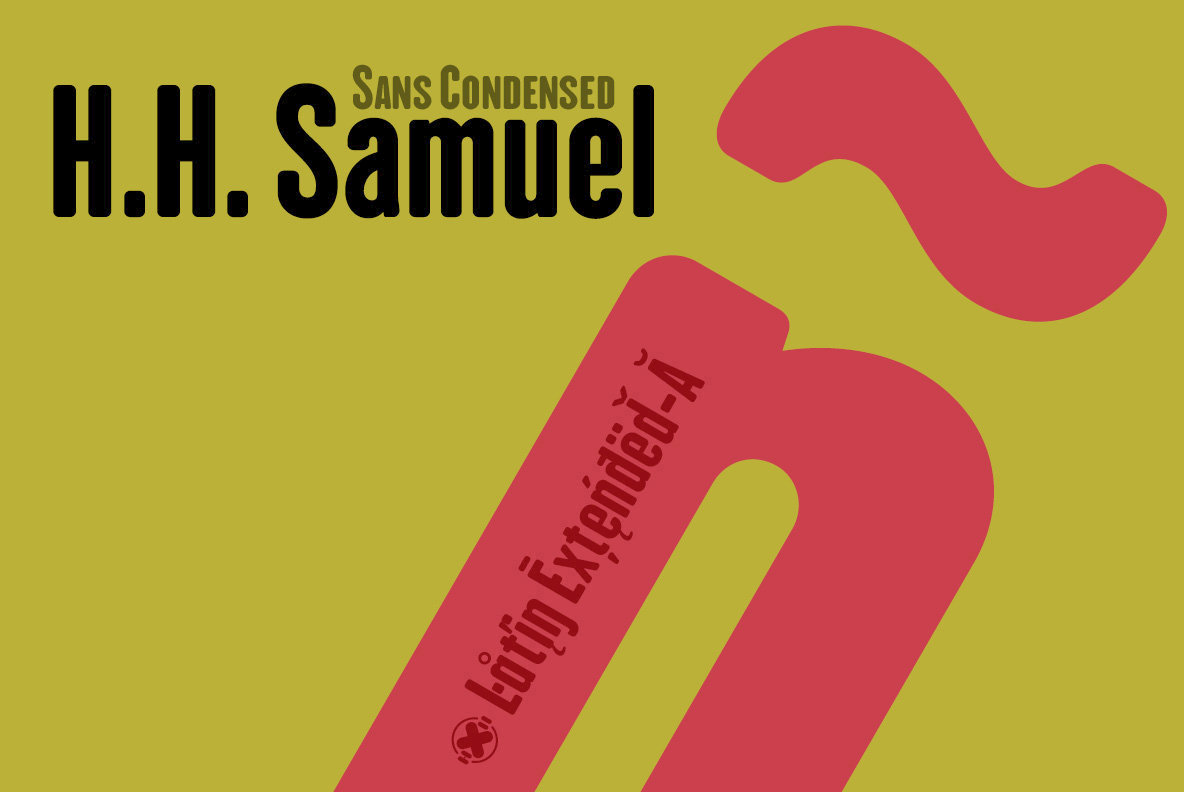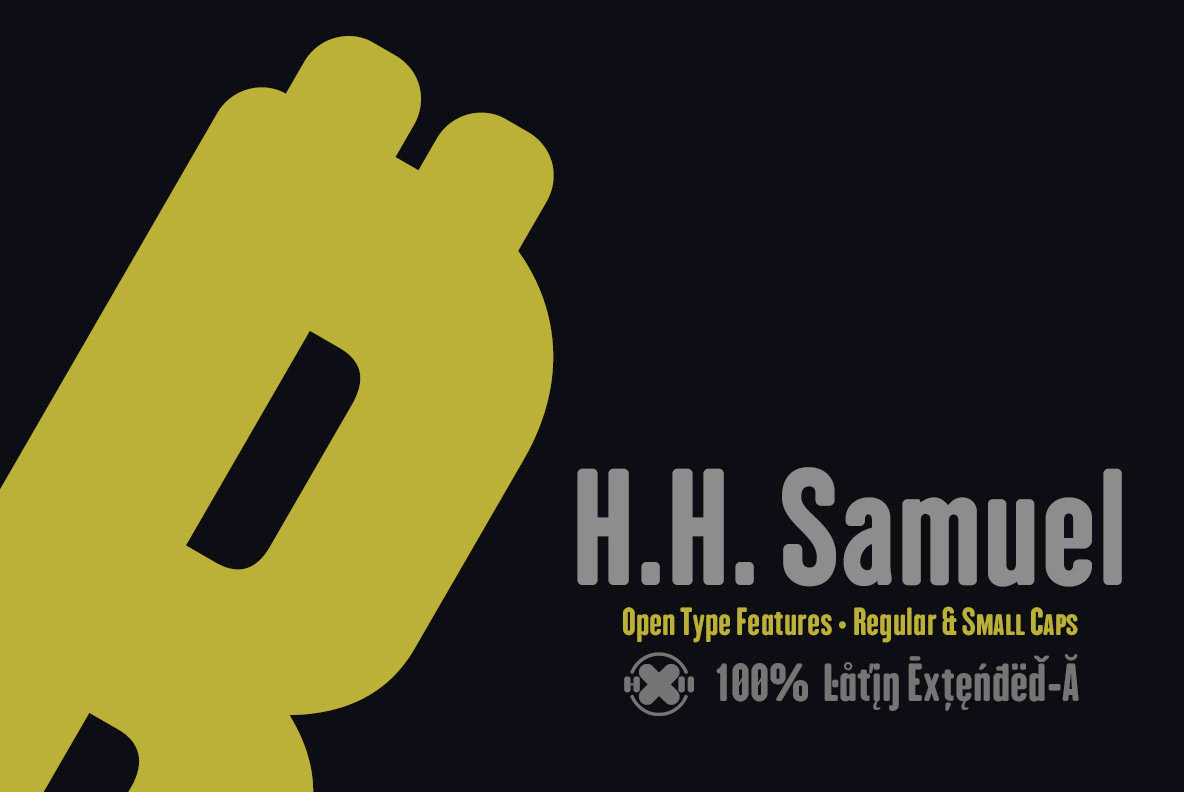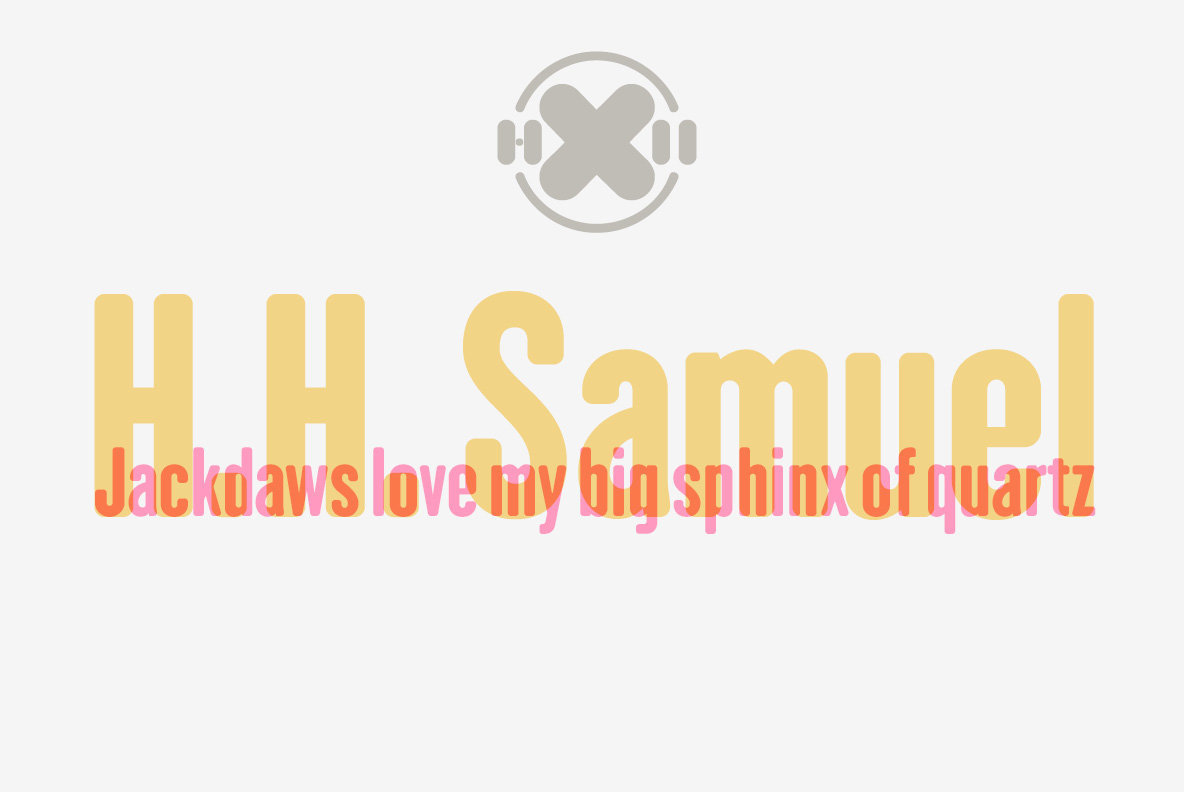
HH Samuel Font
Capturing the elegance of mid-20th century typography, HH Samuel by deFharo offers a compelling twist on the neo-grotesque design. This condensed, sans-serif typeface features rounded edges that ensure readability and a streamlined aesthetic, perfect for stylish headings and compact layouts. Architects, designers, and creators seeking space efficiency without sacrificing distinct style will find HH Samuel an ideal choice.HH Samuel: Neo-Grotesque Fonts with Retro Appeal
Advanced OpenType Features
Designed with flexibility in mind, HH Samuel balances timeless design elements with modern sensibilities, lending an exclusive look to any project. It’s a font where retro meets practical innovation, speaking directly to the expertise and discerning taste of the creative professional.